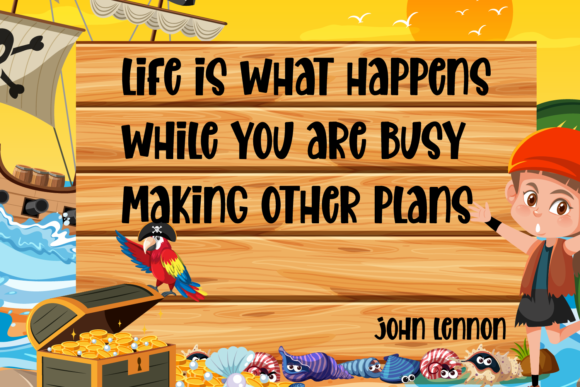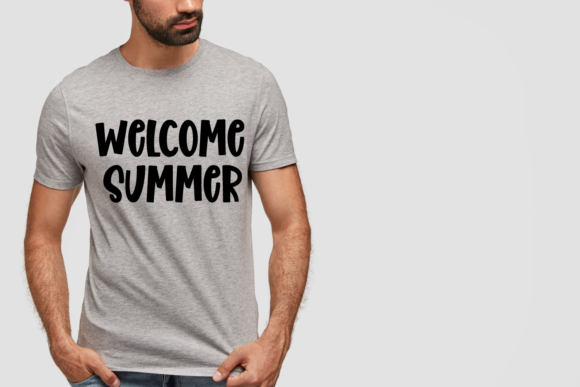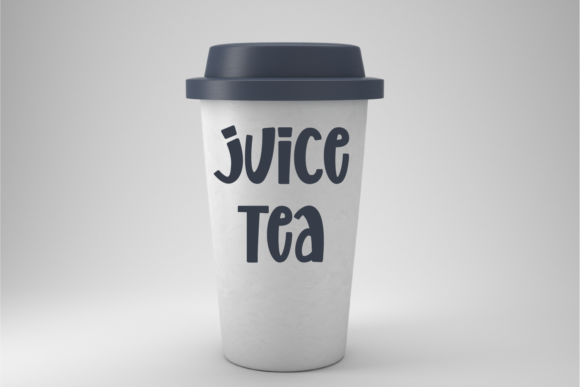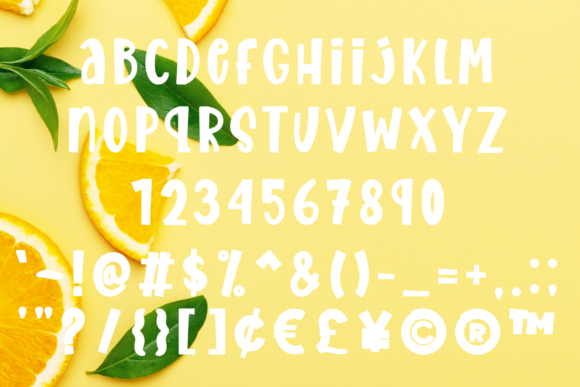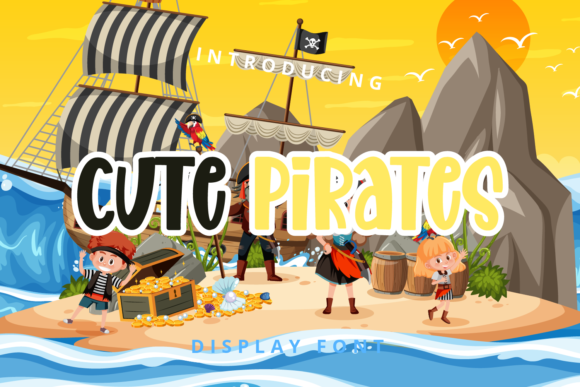
Cute Pirates Font: The Perfect Choice for Kids’ Projects and Activities
Are you looking for a font that’s perfect for kids’ projects, school activities, or any other creative endeavor that requires a playful and friendly touch? Look no further than Cute Pirates Font! This adorable display font is designed to bring a sense of fun and adventure to your designs, making it an ideal choice for designers, crafters, and educators alike.
What is Cute Pirates Font?
Cute Pirates Font is a unique and charming display font that embodies the spirit of playfulness and authenticity. Its cute and friendly design makes it perfect for use in children’s books, school projects, activity sheets, and any other creative project that requires a fun and youthful touch.
Key Features of Cute Pirates Font
- Playful Design: Cute Pirates Font features a playful and adventurous design that’s perfect for kids’ projects and activities.
- Cute and Friendly: The font’s cute and friendly design makes it ideal for use in children’s books, school projects, and activity sheets.
- Display Font: Cute Pirates Font is a display font, making it perfect for use in headings, titles, and other prominent text elements.
- Easy to Read: Despite its playful design, Cute Pirates Font is easy to read, making it perfect for use in a variety of creative projects.
Uses for Cute Pirates Font
Cute Pirates Font is a versatile font that can be used in a variety of creative projects, including:
- Kids’ Books: Use Cute Pirates Font to add a playful touch to your kids’ book designs.
- School Projects: Cute Pirates Font is perfect for use in school projects, including posters, presentations, and activity sheets.
- Activity Sheets: Add a fun and playful touch to your activity sheets with Cute Pirates Font.
- Crafting Projects: Use Cute Pirates Font to add a personal touch to your crafting projects, including cards, invitations, and other paper crafts.
Why Choose Cute Pirates Font?
There are many reasons why Cute Pirates Font is the perfect choice for your next creative project:
- Unique Design: Cute Pirates Font features a unique and charming design that’s sure to stand out.
- Playful and Friendly: The font’s playful and friendly design makes it perfect for use in kids’ projects and activities.
- Versatile: Cute Pirates Font can be used in a variety of creative projects, from kids’ books to crafting projects.
Tips and Tricks for Using Cute Pirates Font
Here are a few tips and tricks for using Cute Pirates Font:
- Use it in Combination with Other Fonts: Cute Pirates Font pairs well with other fonts, so don’t be afraid to experiment with different font combinations.
- Experiment with Different Sizes: Cute Pirates Font looks great in a variety of sizes, so experiment with different sizes to find the one that works best for your project.
- Add a Personal Touch: Use Cute Pirates Font to add a personal touch to your designs, including kids’ books, school projects, and activity sheets.
Cute Pirates Font is a unique and charming display font that’s perfect for kids’ projects, school activities, and any other creative endeavor that requires a playful and friendly touch. Its cute and friendly design makes it ideal for use in children’s books, school projects, activity sheets, and more. With its easy-to-use design and versatile nature, Cute Pirates Font is sure to become a favorite among designers, crafters, and educators alike.